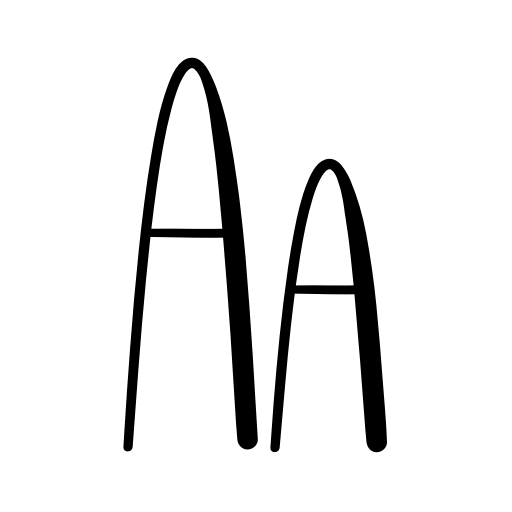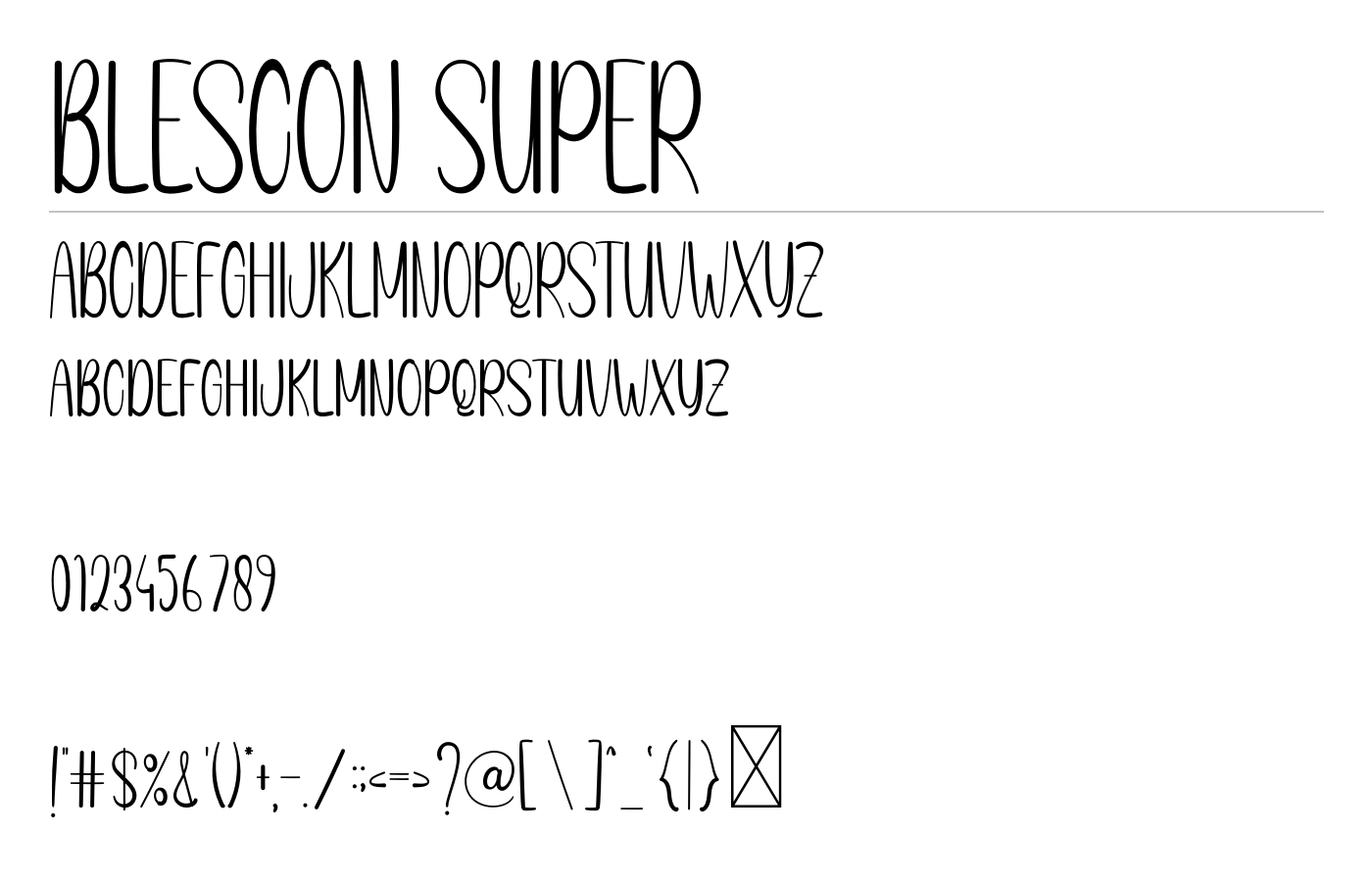
BLESCON SUPER is a playful and quirky sans serif font characterized by its tall, narrow letterforms and thin, irregular strokes that give it a hand-drawn feel. Its elongated shapes and whimsical details create an informal and friendly vibe, making it ideal for creative projects, children's designs, or casual branding where a unique and approachable personality is desired. This font works best in display settings like headlines, posters, and logos where its distinctive style can shine.
BLESCON SUPER Font